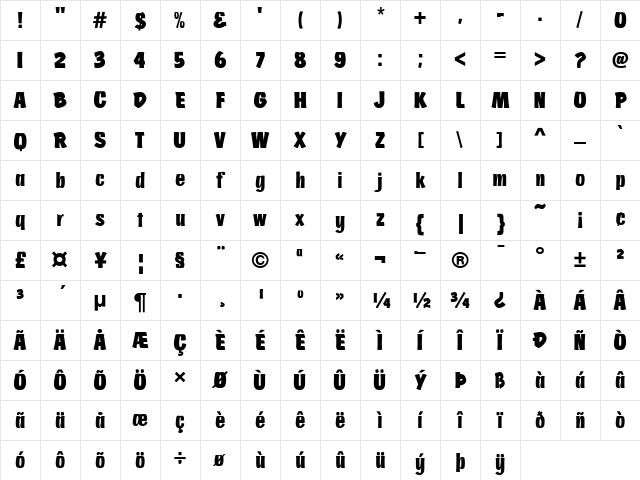
Churchward Brush D Regular
Design Context for Churchward Brush D
Churchward Brush D flows with the natural rhythm of handwritten lettering, making it ideal for designs that call for warmth and personal expression.
Font Pairing: Combine Churchward Brush D with a simple geometric sans for maximum contrast - the tension between flowing curves and clean structure is a classic typographic pairing.
Pro Tip: Use Churchward Brush D for short runs of text - names, titles, or taglines. Extended body copy in script faces tires the eye quickly.